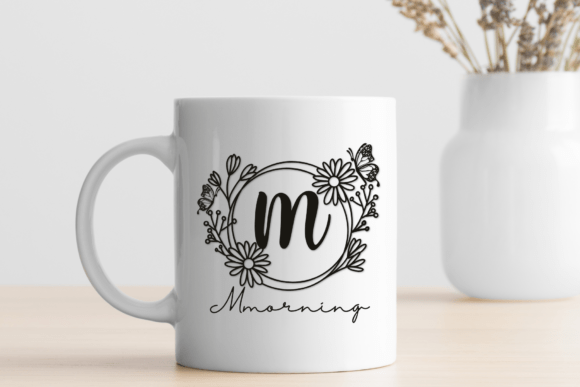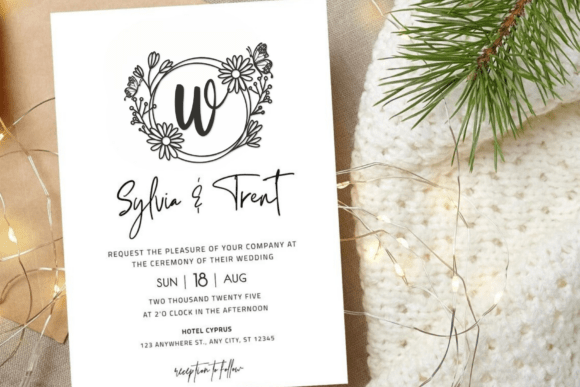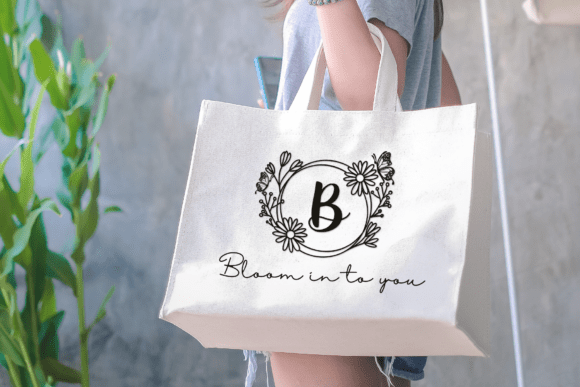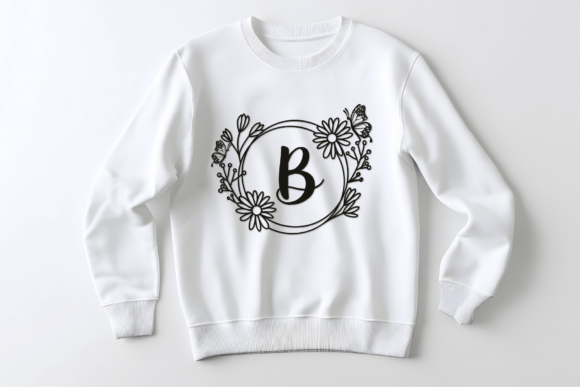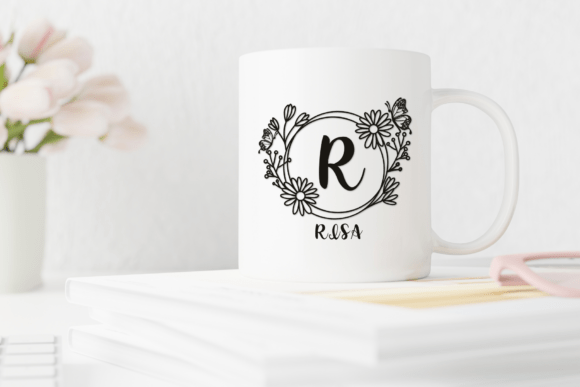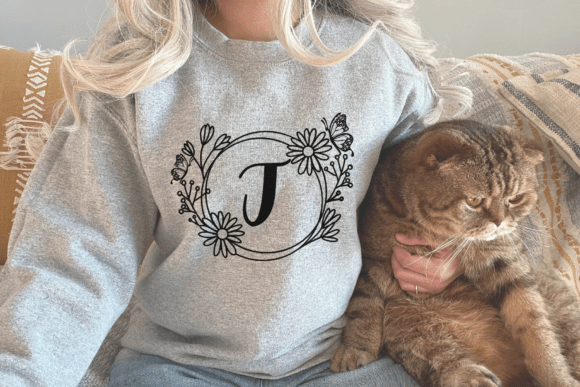
Blooming Elegant Font: Elevate Your Designs with Nature-Inspired Sophistication
In the world of typography, few fonts capture the essence of elegance and natural beauty as effortlessly as the Blooming Elegant font. This decorative typeface is a masterpiece of design, seamlessly blending graceful curves with delicate floral details to create a truly unique and captivating visual experience. Whether you’re a designer, crafter, or simply someone who appreciates the art of beautiful lettering, Blooming Elegant is sure to inspire your creativity and elevate your projects to new heights.
The Characteristics of Blooming Elegant
Blooming Elegant is more than just a font – it’s a statement piece. Its design is characterized by:
- Floral motifs: Intricate, delicate flowers and foliage are woven throughout the letters, adding a touch of whimsy and romance to the font.
- Curved lines: Smooth, flowing curves give the font its elegant and sophisticated feel, making it perfect for designs that require a sense of luxury and refinement.
- Ornate details: Each letter is carefully crafted with ornate details that add depth and visual interest to the font.
Blooming Elegant’s versatility makes it an excellent choice for a wide range of design projects, including:
- Wedding invitations: Add a touch of romance and sophistication to your wedding stationery with this beautiful font.
- Monograms: Create stunning, one-of-a-kind monograms for personal gifts, stationery, or branding projects.
- Greeting cards: Bring a touch of elegance to your greeting cards, whether it’s for a special occasion or just to say hello.
- Branding projects: Use Blooming Elegant to add a touch of natural beauty and sophistication to your brand’s visual identity.
Why Choose Blooming Elegant?
With so many fonts available, why choose Blooming Elegant? Here are just a few reasons why this font stands out:
- Unique and eye-catching: Blooming Elegant is a one-of-a-kind font that will set your designs apart from the rest.
- Elegant and sophisticated: This font exudes luxury and refinement, making it perfect for high-end designs.
- Nature-inspired: The delicate floral details and curved lines evoke the beauty of nature, adding a touch of whimsy and romance to your designs.
Tips for Using Blooming Elegant
To get the most out of Blooming Elegant, here are a few tips to keep in mind:
- Use it sparingly: While Blooming Elegant is a beautiful font, it can be overwhelming if used excessively. Use it as an accent font to add a touch of elegance to your designs.
- Experiment with colors: The font looks stunning in a variety of colors, from soft pastels to rich jewel tones. Experiment with different colors to find the perfect combination for your design.
- Pair it with a simple font: For body text, pair Blooming Elegant with a simple, clean font to create a beautiful contrast.
Blooming Elegant is a truly unique and captivating font that brings a touch of nature-inspired sophistication to any design. With its delicate floral details, curved lines, and ornate details, this font is perfect for designers and crafters looking to add a touch of elegance and refinement to their projects. Whether you’re creating wedding invitations, monograms, greeting cards, or branding projects, Blooming Elegant is sure to inspire your creativity and elevate your designs to new heights. So why wait? Let your creativity bloom with every letter!